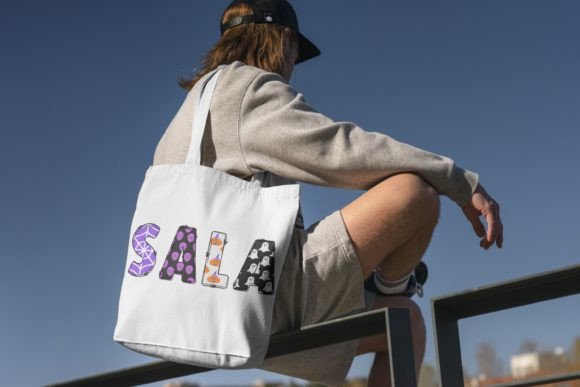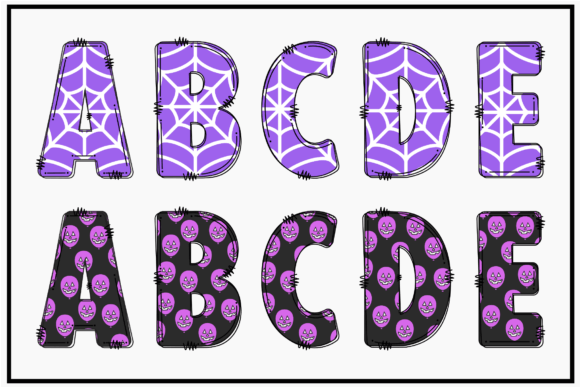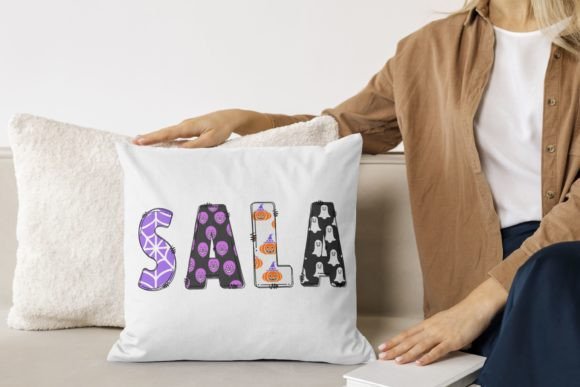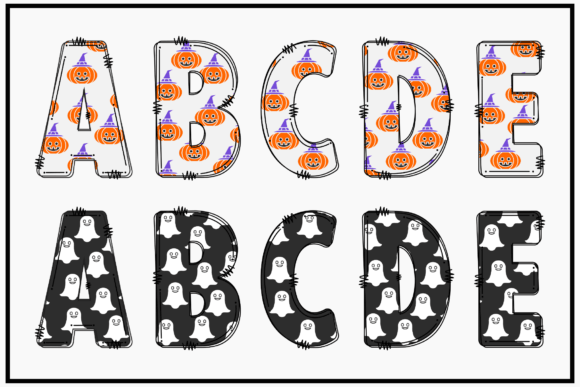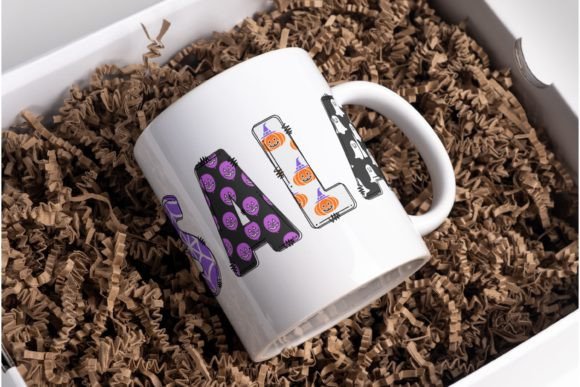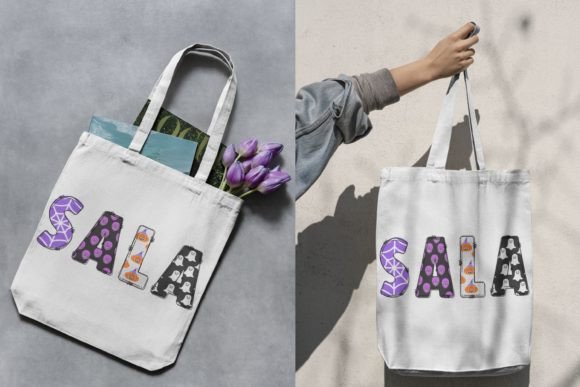
Halloween Font: Add a Spooky Touch to Your Designs
Are you looking for a font that captures the essence of Halloween? Look no further than the Halloween Font, a cute and fun Halloween-styled detailed colored font that’s perfect for a variety of design projects. In this article, we’ll explore the features of this font, its compatibility with different design programs, and provide tips on how to use it to create spooky and eye-catching designs.
What is Halloween Font?
Halloween Font is a unique and creative font that’s specifically designed for Halloween-themed projects. It’s a detailed colored font that features intricate designs and patterns, making it perfect for creating posters, flyers, school designs, book and movie covers, and more. The font comes in two versions: a black version and a color version.
Features of Halloween Font
- Cute and fun design: The Halloween Font features a playful and spooky design that’s perfect for Halloween-themed projects.
- Detailed colored font: The font features intricate designs and patterns, making it perfect for creating eye-catching designs.
Tips for Using Halloween Font
Here are some tips for using the Halloween Font in your designs:
- Use it for Halloween-themed projects: The Halloween Font is perfect for creating Halloween-themed posters, flyers, school designs, book and movie covers, and more.
- Experiment with different colors: The color version of the font offers a range of colors to choose from, so don’t be afraid to experiment and find the perfect combination for your design.
- Pair it with other fonts: The Halloween Font can be paired with other fonts to create a unique and eye-catching design.
The Halloween Font is a unique and creative font that’s perfect for adding a spooky touch to your designs. With its cute and fun design, detailed colored font, and compatibility with a range of design programs, it’s perfect for designers and crafters alike. Whether you’re creating Halloween-themed projects or just want to add a touch of spookiness to your designs, the Halloween Font is a great choice. So why not give it a try and see what kind of spooky and eye-catching designs you can create?